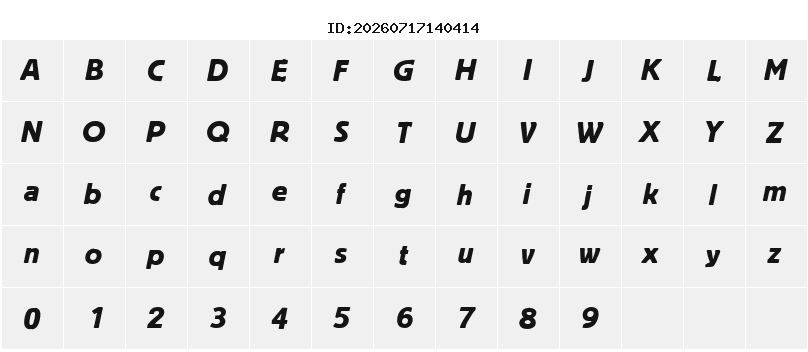
BlockTReg Preview
• Font Name: BlockTReg
• Font ID: URW:BlockT-ReguItal:1994
• Full Font Name: BlockTReg Italic
• PostScript Name: BlockT-ReguItal
About BlockTReg.ttf
BlockTReg.ttf is a modern, elegant sans-serif font designed for ultimate readability and visual harmony. Perfect for branding, headlines, web design, and print materials.